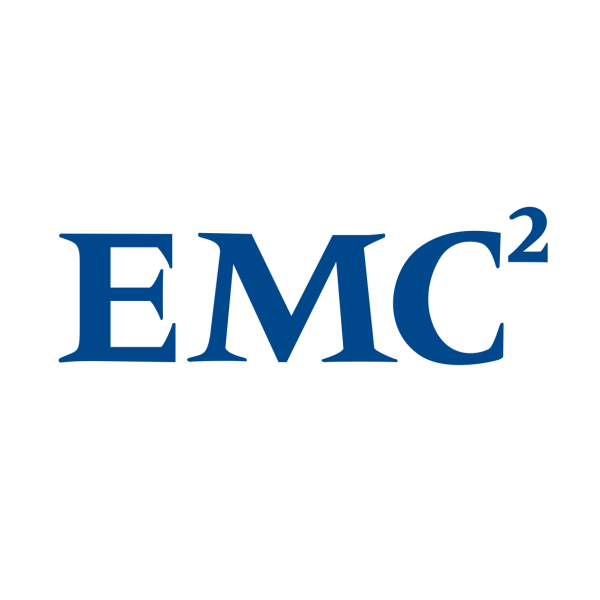
EMC Font
ElectronicsEMC was a multinational data storage technology company founded in 1979 and was acquired by Dell Technologies in 2016. It specialized in cloud computing, big data, virtualization, and information management.
The original EMC logo features the text “EMC²” in an inscribed serif typeface, likely Meridien Bold, designed by Adrian Frutiger in 1957. After the acquisition of Dell, a new logo was introduced with a custom drawn wordmark.